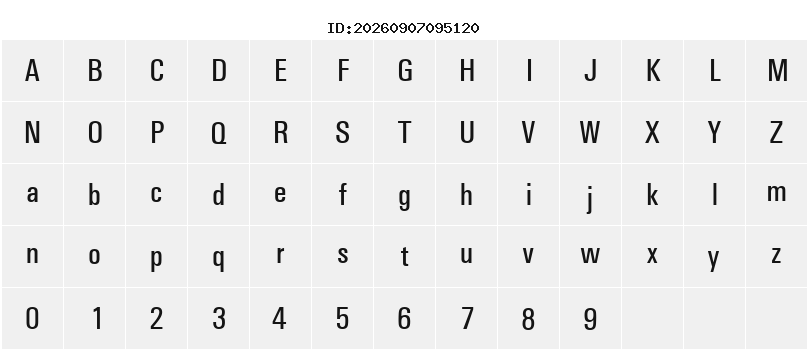
Univers Condensed CE Preview
• Font Name: Univers Condensed CE
• Full Font Name: Univers Condensed
About Univers Condensed CE.ttf
Univers Condensed CE.ttf is a modern, elegant sans-serif font designed for ultimate readability and visual harmony. Perfect for branding, headlines, web design, and print materials.